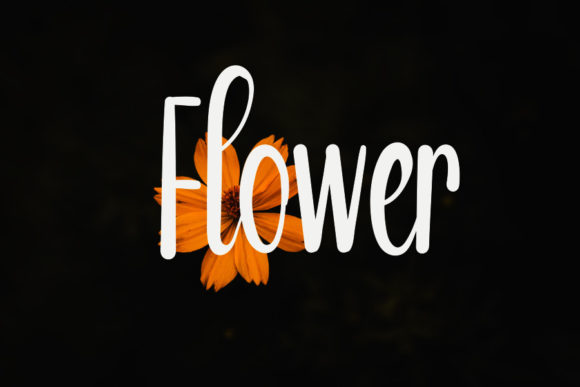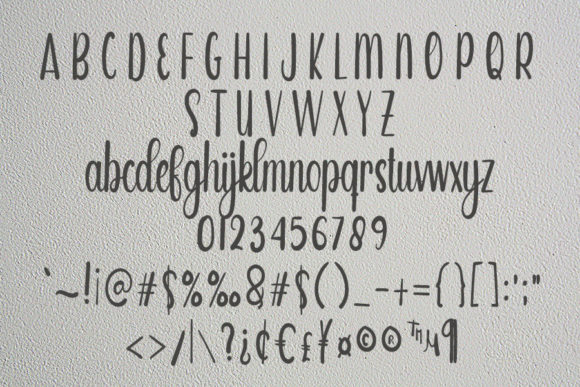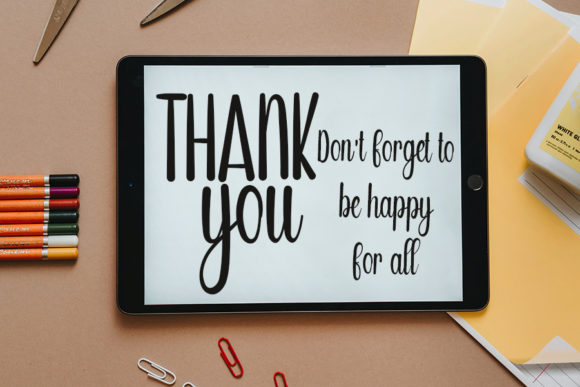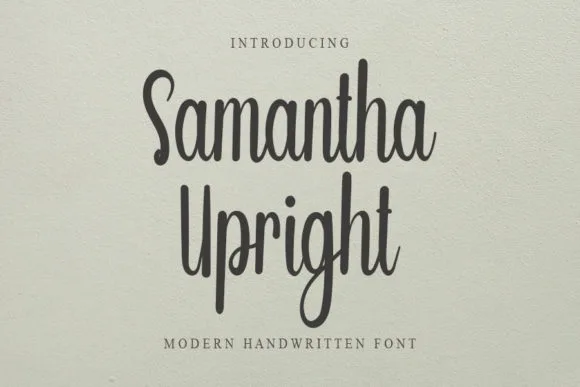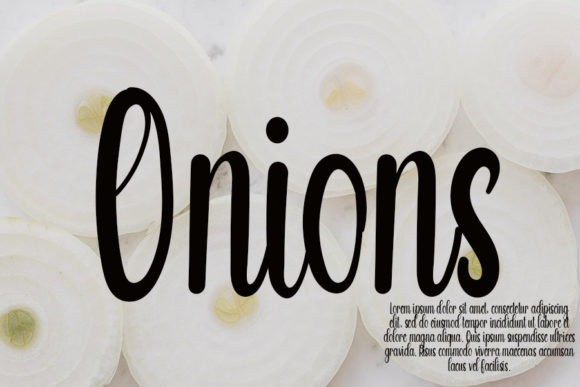
Samantha Upright Font
About Samantha Upright Font
Samantha Upright is a friendly handwritten font, meticulously crafted to earn its place as a true favorite. This font strikes a harmonious balance by retaining its classy calligraphic influences while emanating a contemporary and fresh vibe.
The friendly and approachable nature of Samantha Upright makes it a versatile choice for a variety of design applications. Whether used in formal contexts, creative projects, or branding materials, this font adds a touch of friendliness and elegance to the overall visual experience.
The careful design of Samantha Upright ensures that it seamlessly combines classic calligraphy with a modern and fresh aesthetic. Its adaptability allows it to fit into different design themes while maintaining a sense of timeless charm.
In summary, Samantha Upright is more than just a font; it’s a friendly and carefully crafted handwritten typeface that effortlessly blends classic calligraphy with a contemporary feel. With its versatile appeal, Samantha Upright is poised to become a favorite choice for designers seeking a font that exudes friendliness and elegance in their projects.